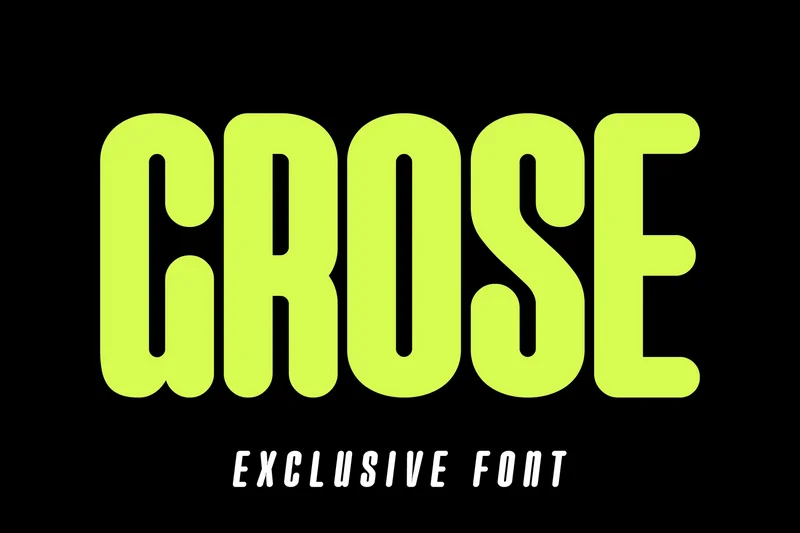
Grose – Modern Bold Sans Serif
Meet GROSE, a modern and bold sans-serif font designed to make a powerful impact. Its clean, thick letterforms exude confidence and energy, making it the perfect choice for logos, sports branding, modern food packaging, and eye-catching headlines. Exclusively available on Envato Elements, GROSE is your secret weapon for creating designs that demand attention.
All Caps, Numbers & Punctuation
Alternate Glyph
Regular & Oblique